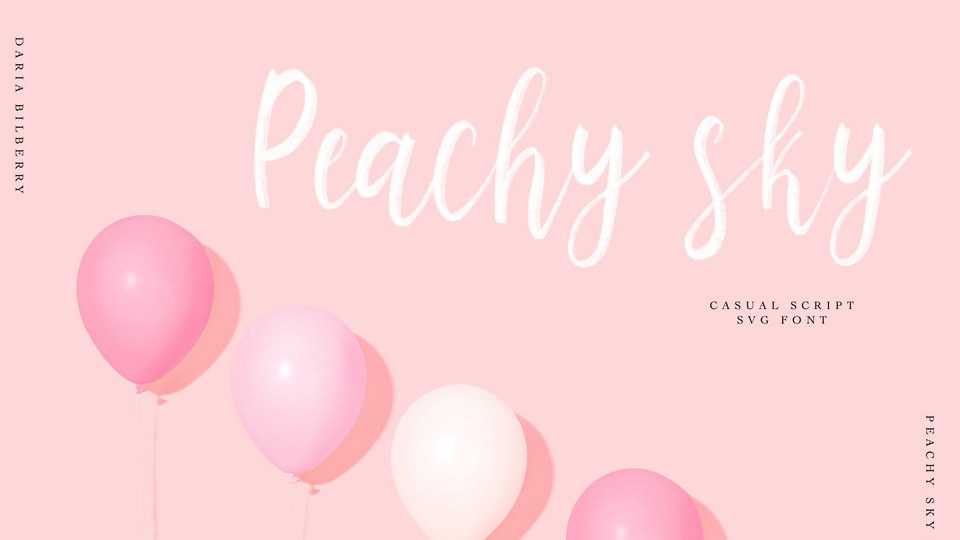
Download Peachy Sky font, a beautiful hand lettered script. Peachy Sky script was carefully drawn in charcoal and transferred to the digital version to create beautiful typographical designs.
Designer: Daria Cherniakova